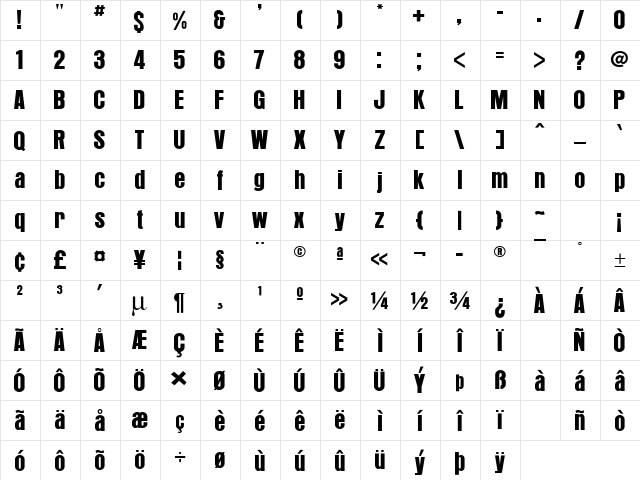
Royko Regular
Design Context for Royko Typeface
Royko takes a measured approach to typography — its balanced proportions and neutral character make it a reliable workhorse for both digital and print work.
Pro Tip: Use Royko in both headline and body roles to test its range before committing to a single application.